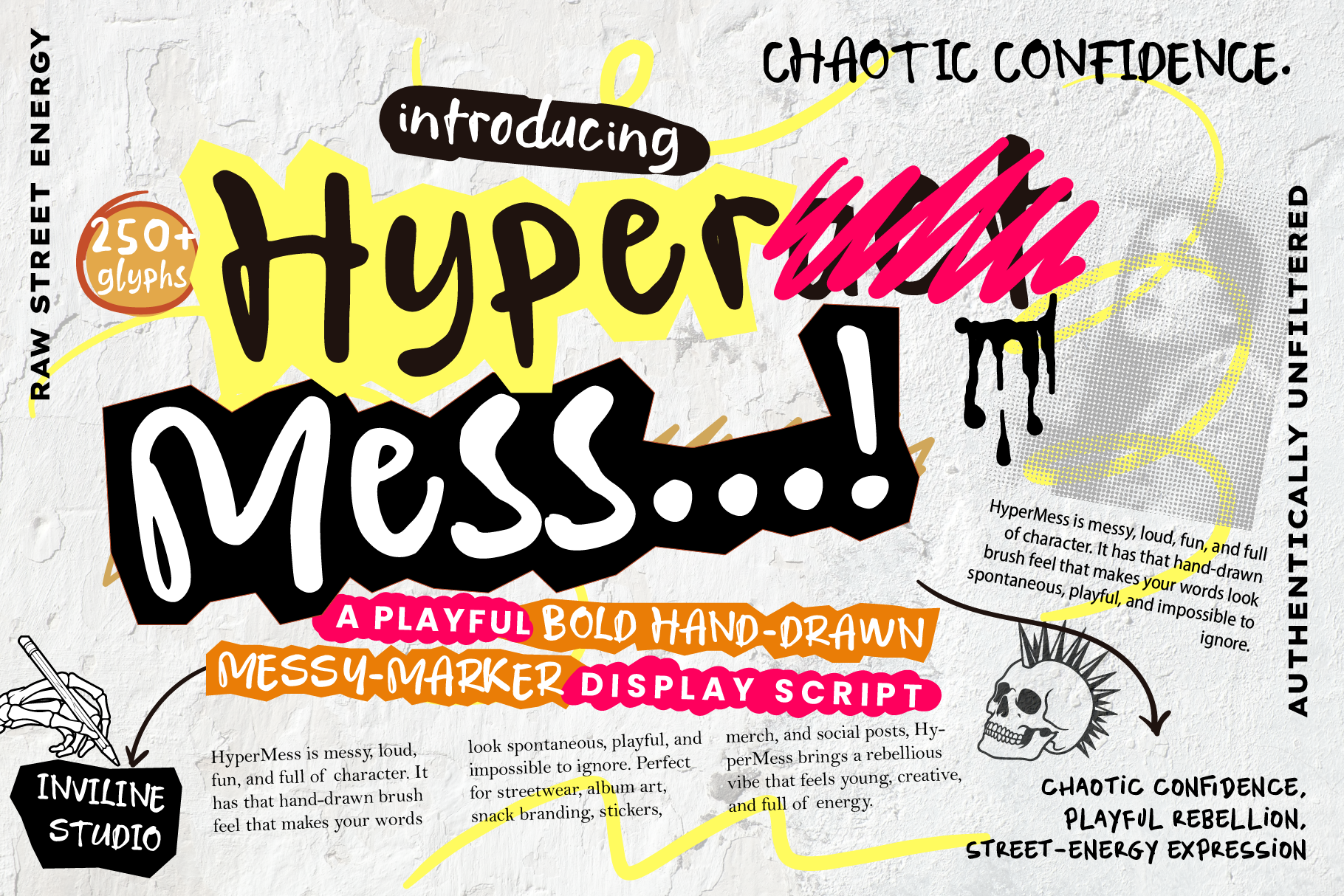
HyperMess - Script Display Font
HyperMess — Bold Messy Marker Script Font
HyperMess is a bold hand-drawn marker font packed with raw energy, rough strokes, and spontaneous personality. Its messy, imperfect letterforms bring a rebellious handmade feel to every design.
Perfect for streetwear, music posters, album covers, fashion campaigns, zines, stickers, merchandise, and bold social media graphics.
Bold messy marker style
250+ glyphs
Rough & imperfect strokes
Hand-drawn character
Playful and rebellious personality
Uppercase & lowercase
Strong display impact
Ideal For
Streetwear branding
Music & album artwork
Fashion graphics
Skate designs
Zines & editorial
Posters & event graphics
T-shirts & merchandise
Stickers
Social media campaigns
Experimental typography
Design Tips
Use HyperMess at medium to large sizes to highlight its rough marker texture. Pair it with a clean grotesque, condensed sans serif, or monospace font for contrast.
For a stronger rebellious look, combine it with neon accents, black & white graphics, paper textures, doodles, scribbles, and collage elements.